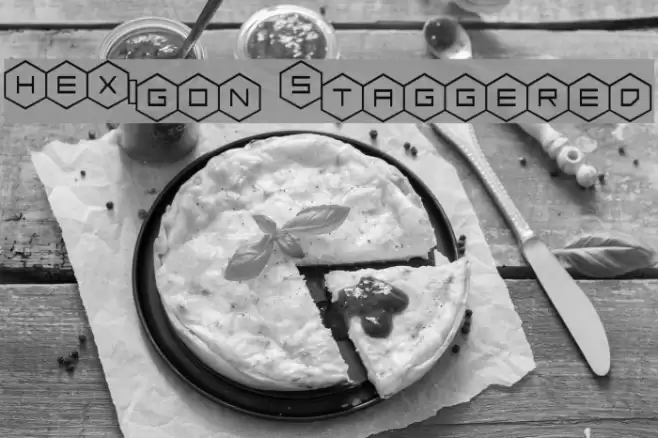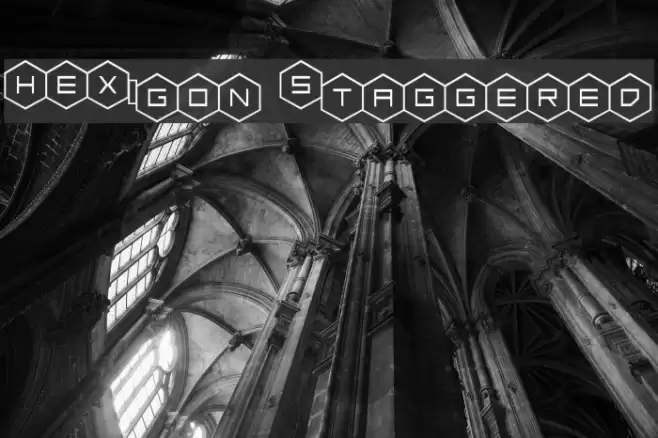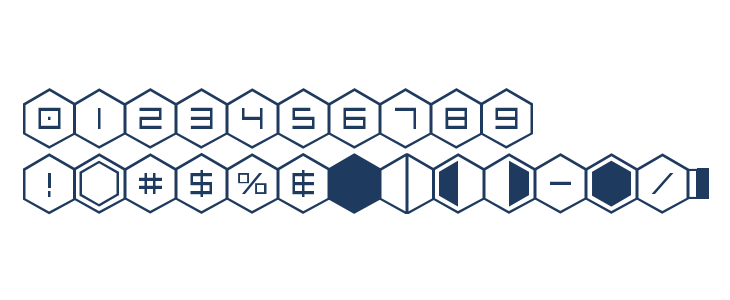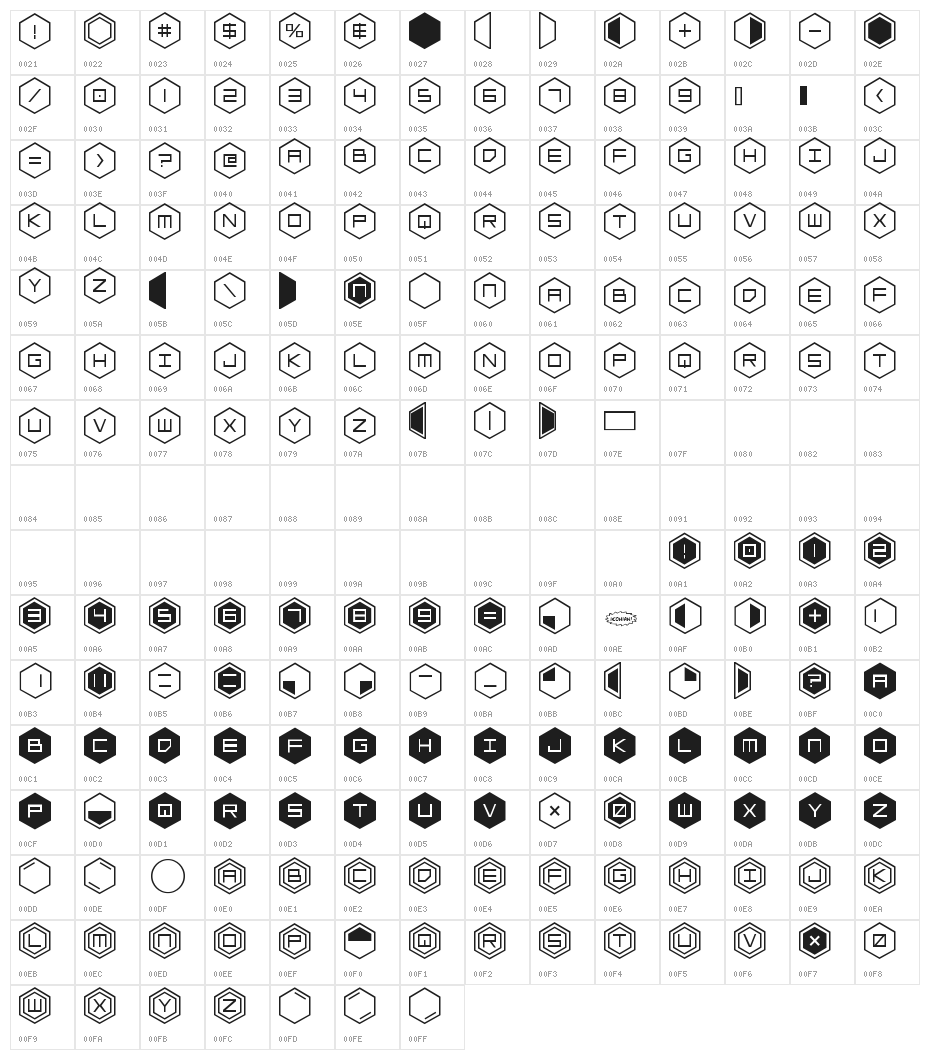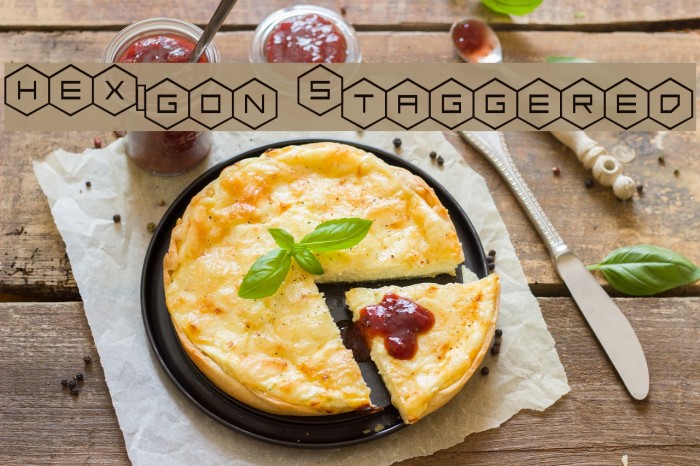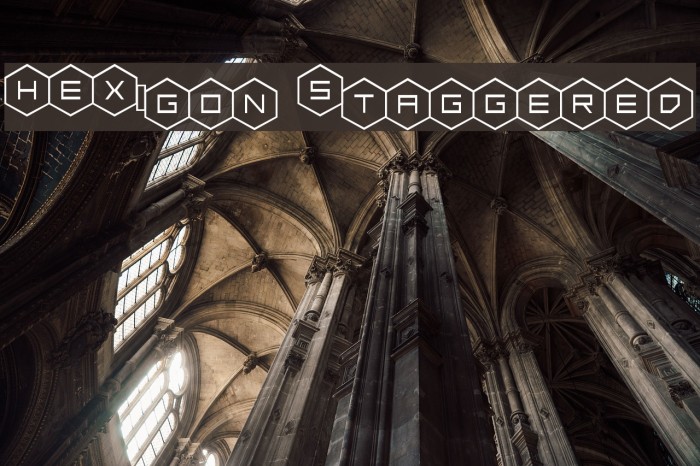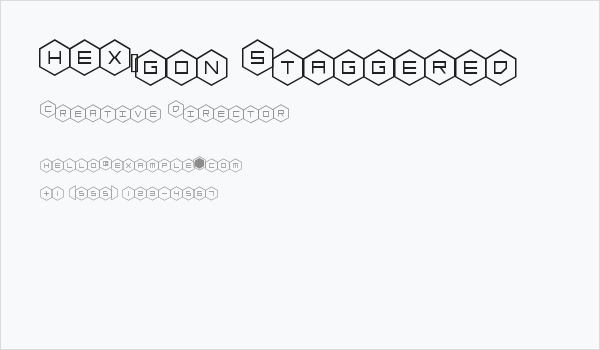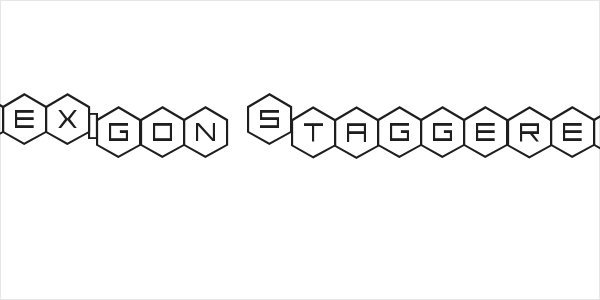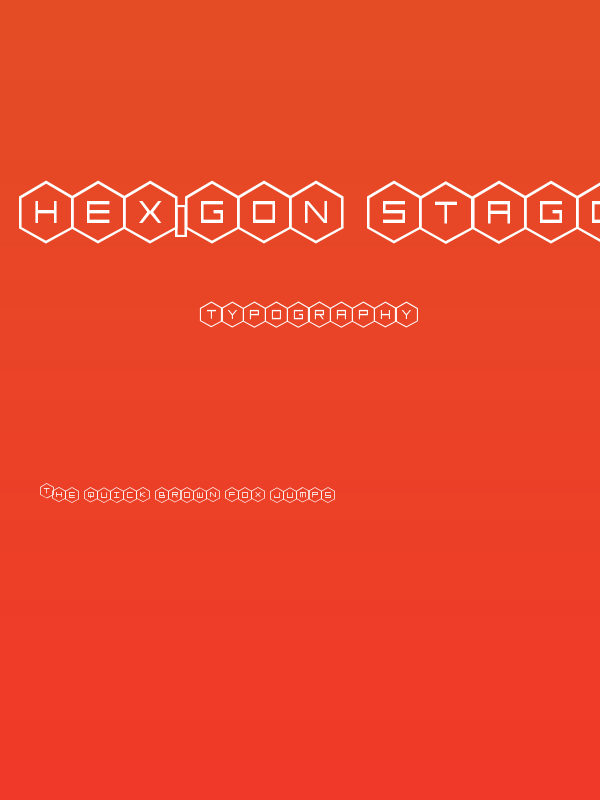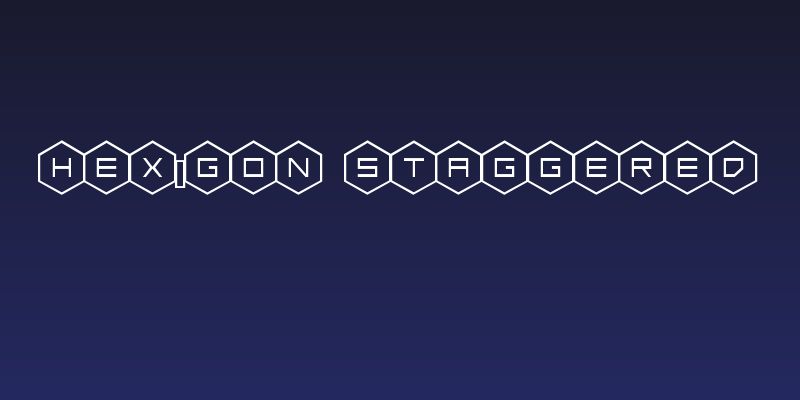
HEX:gon Staggered Font
HEX:gon Staggered Description
This font features a unique hexagonal design where each character is enclosed within a hexagon. The characters themselves are geometric and modern, with a clean and minimalistic appearance. The uppercase and lowercase letters maintain a consistent style, emphasizing straight lines and angular forms. Numbers and special characters are also included, each fitting seamlessly within the hexagonal grid. The overall design is bold and eye-catching, making it suitable for creative and contemporary projects.
A modern, geometric font with characters enclosed in hexagons from Uncategorized fonts.
- Proposed Projects: Ideal for tech-themed designs, futuristic branding, posters, and digital media.